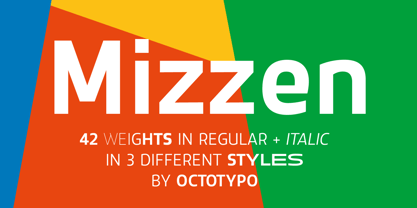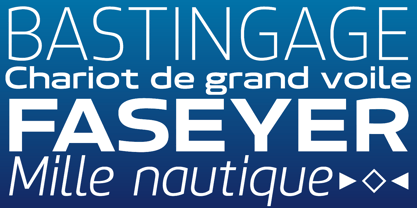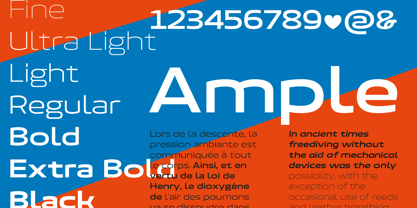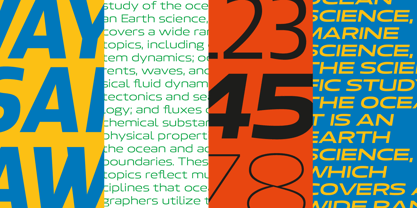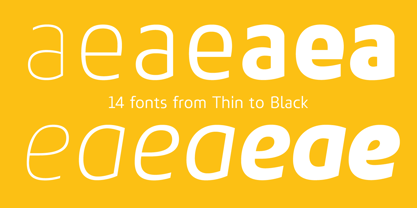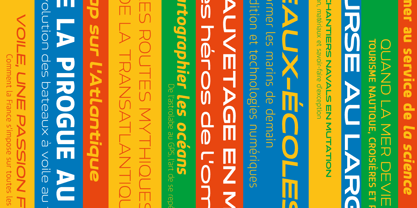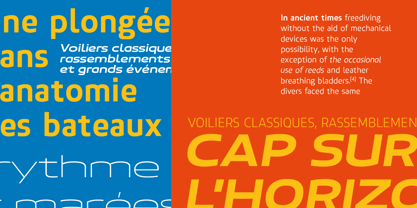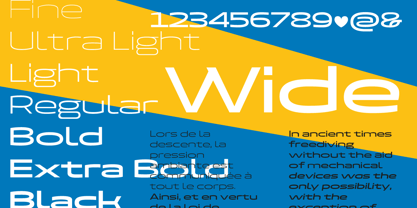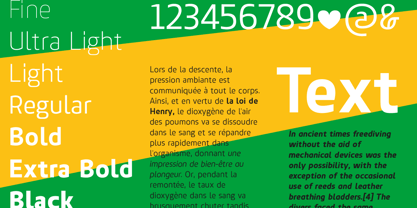
Mizzen
Mizzen is a sans serif trimmed like a hull and named for the mast that keeps a ship on course. Built on sturdy stems, open apertures, and a generous x-height, it reads cleanly from dockside posters to tiny UI labels. Its curves round like sea-worn stone; its rhythm is tight but breathable, so copy sets quickly and headlines hit hard. Mizzen anchors identity work and wayfinding, then sails smoothly through long passages without glare. When your brand needs clear bearings and human warmth, hoist Mizzen and make steady headway. Available in versatile weights and styles, it holds alignment like rigging in a gale.